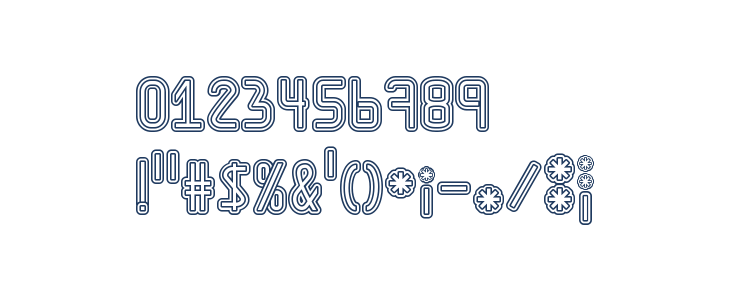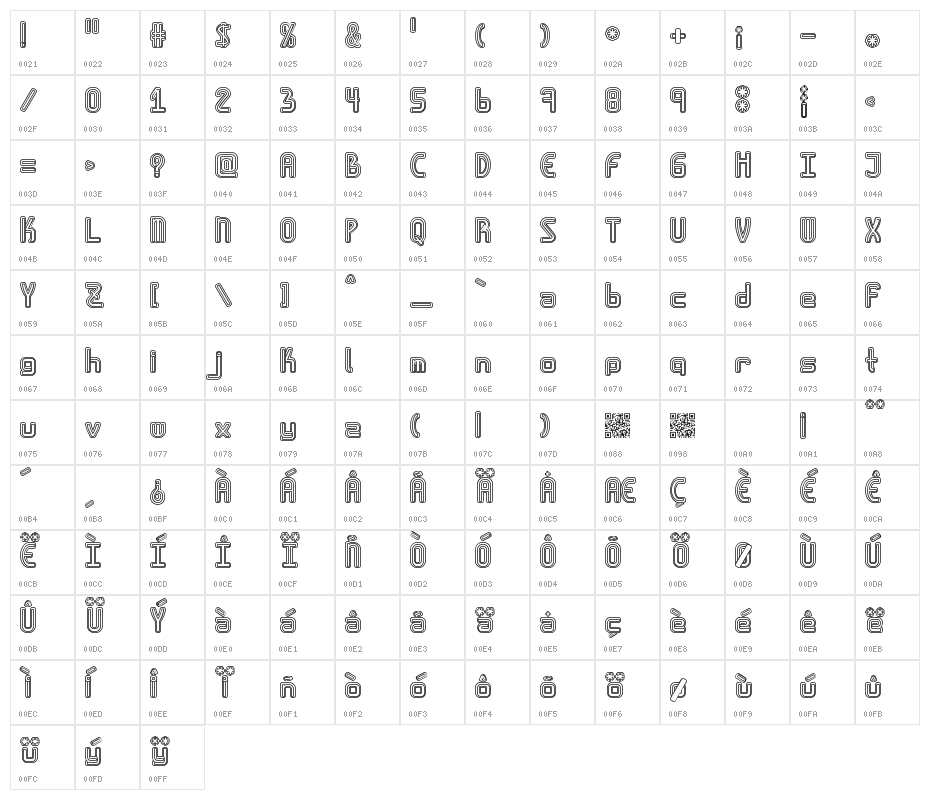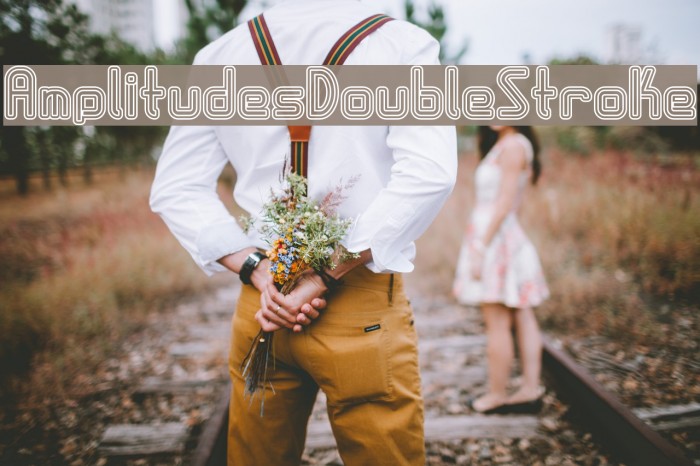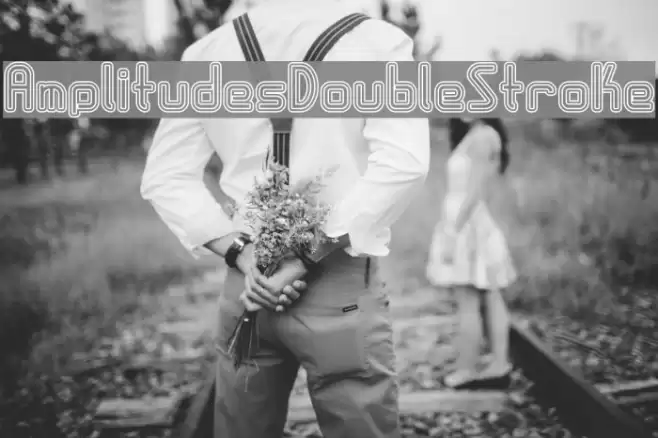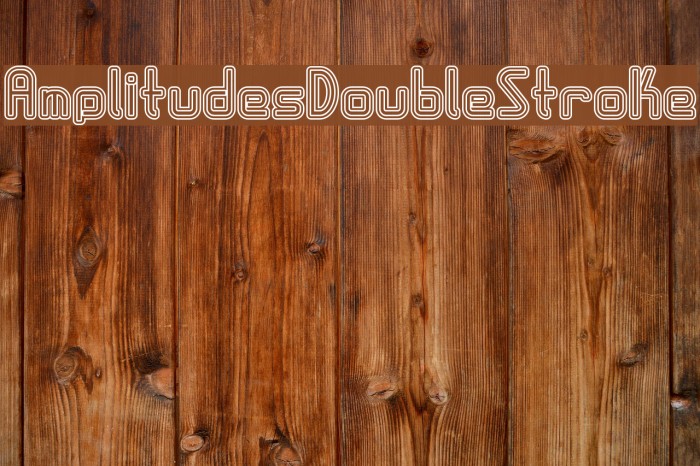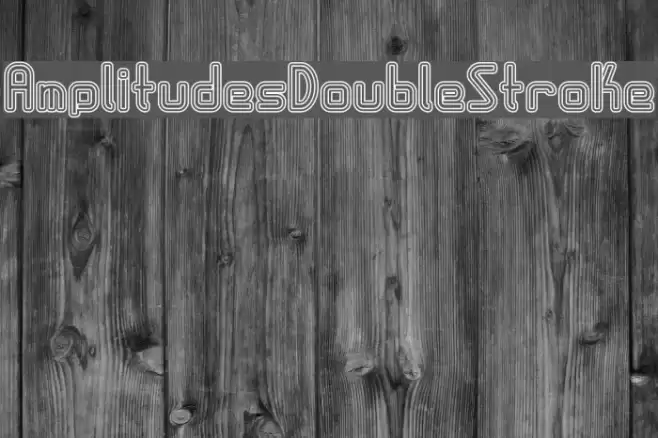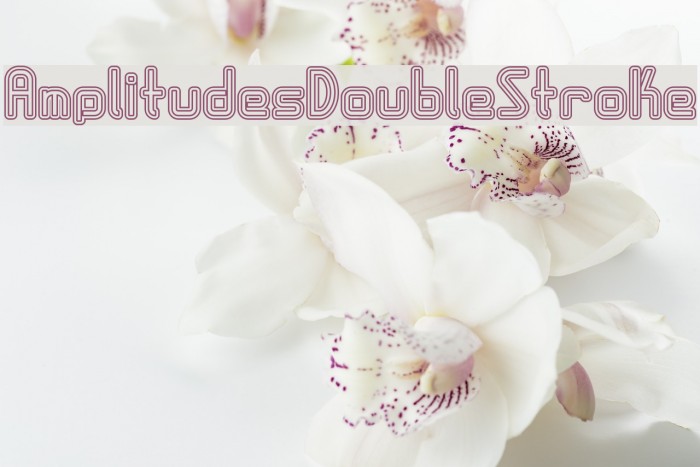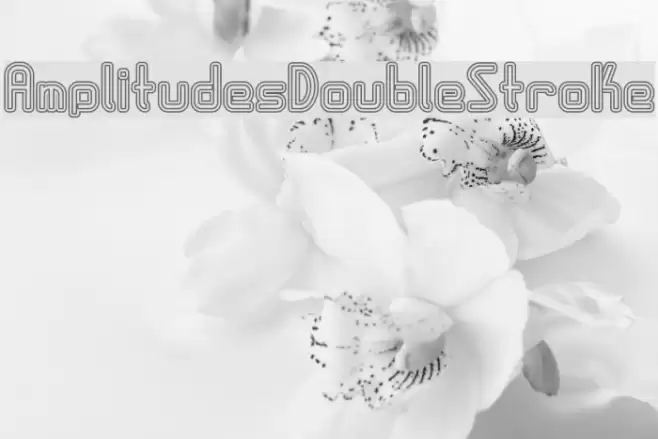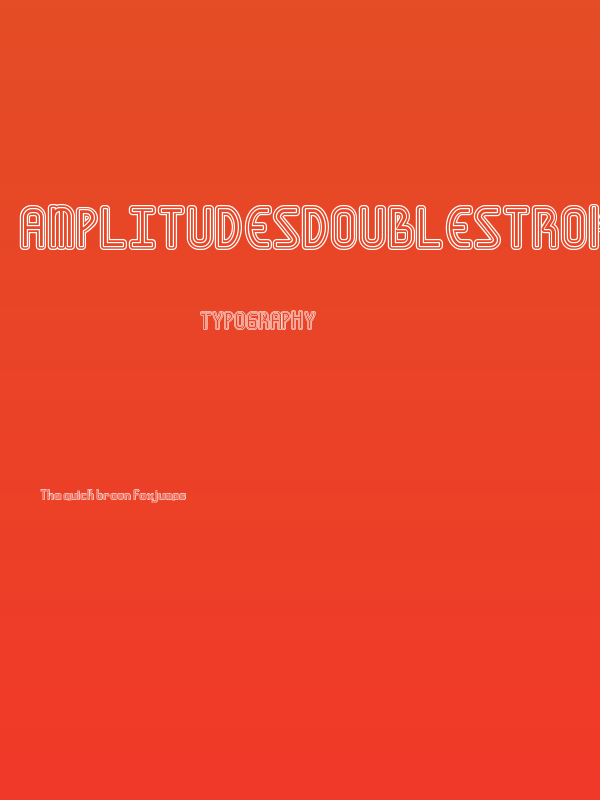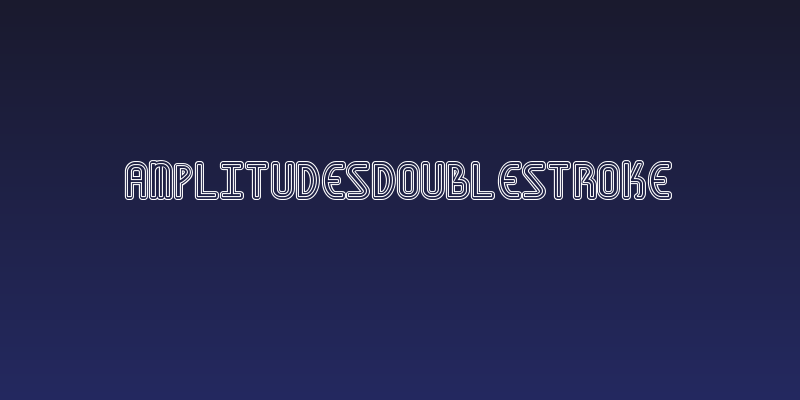
AmplitudesDoubleStroke Font
AmplitudesDoubleStroke Description
This font features a unique double-stroke design, creating a bold and eye-catching appearance. Each character is outlined with a consistent double line, giving it a dimensional and layered look. The uppercase and lowercase letters maintain a uniform style, ensuring readability while adding a decorative flair. The numerals and special characters are crafted with the same attention to detail, making them stand out in any design. This font is ideal for projects that require a modern and playful touch, with its distinct outline style making it perfect for headlines, posters, and creative branding.
| Proposed Projects | Ideal for headlines, posters, creative branding, and any design needing a bold statement. |